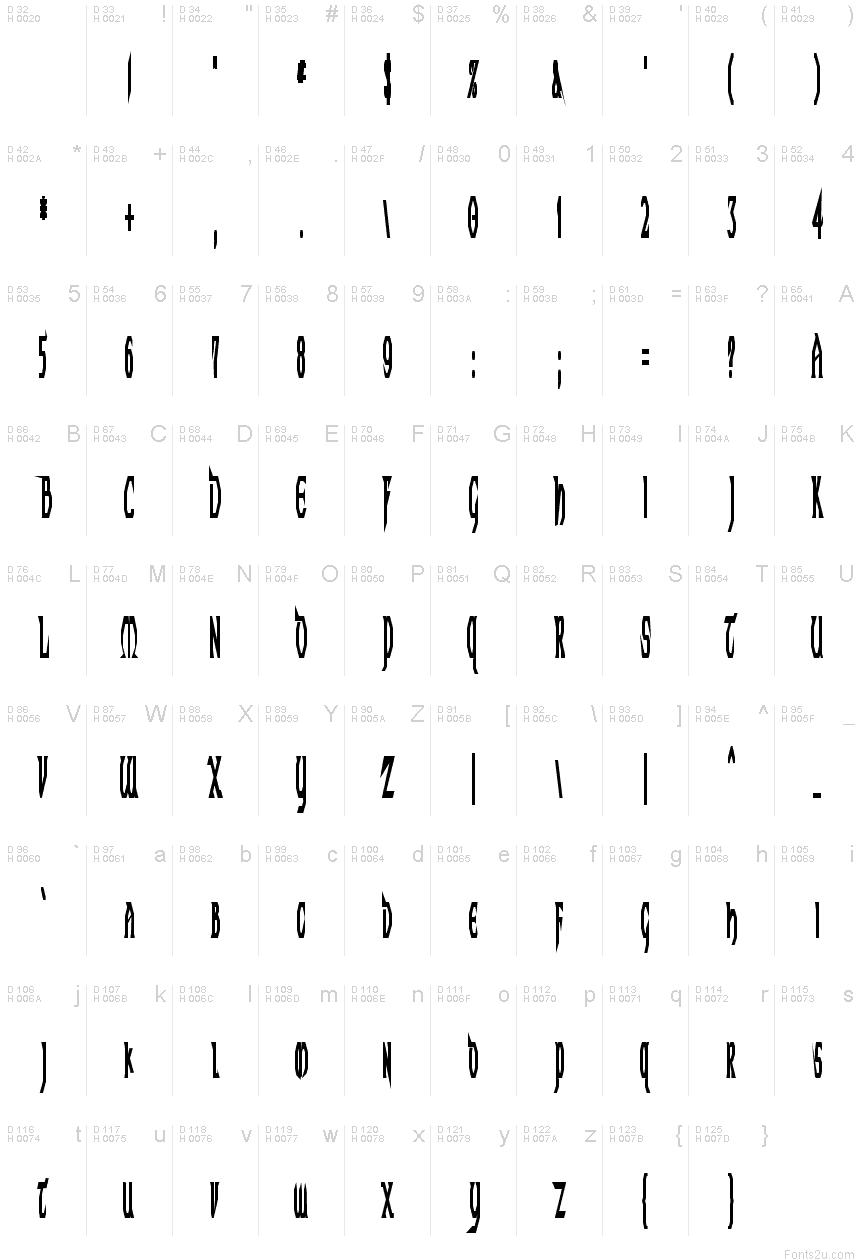
Techno Longer
Techno Longer, from OMEGA Font Labs, is a free techno caps display font with a sharp late-90s sci-fi attitude. The letters rise as narrow, elongated forms with wedge-cut corners and deep angular notches, giving the font a stretched, mechanical rhythm that feels more like title lettering than ordinary display type.
It fits poster headlines, game logos, club flyers, cover lines, and title cards where a little futuristic tension helps carry the page. As a free font, it also works well for monograms and short wordmarks, because those long, tapering shapes make even a few letters feel stylized and deliberate.